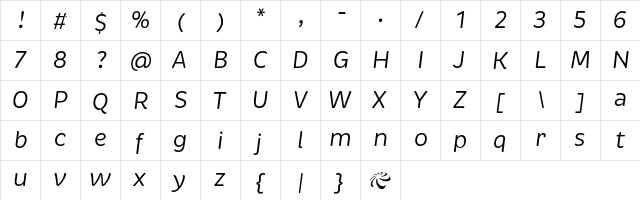
Brevia RegularItalic Regular
| Foundry | Hannes von Dn |
| Designer | Hannes von Dn |
Design Context for Brevia RegularItalic Typeface
Brevia RegularItalic is a composed and adaptable typeface that performs quietly and consistently across a wide range of design contexts. Its italic angle brings a sense of urgency and motion to the letterforms.